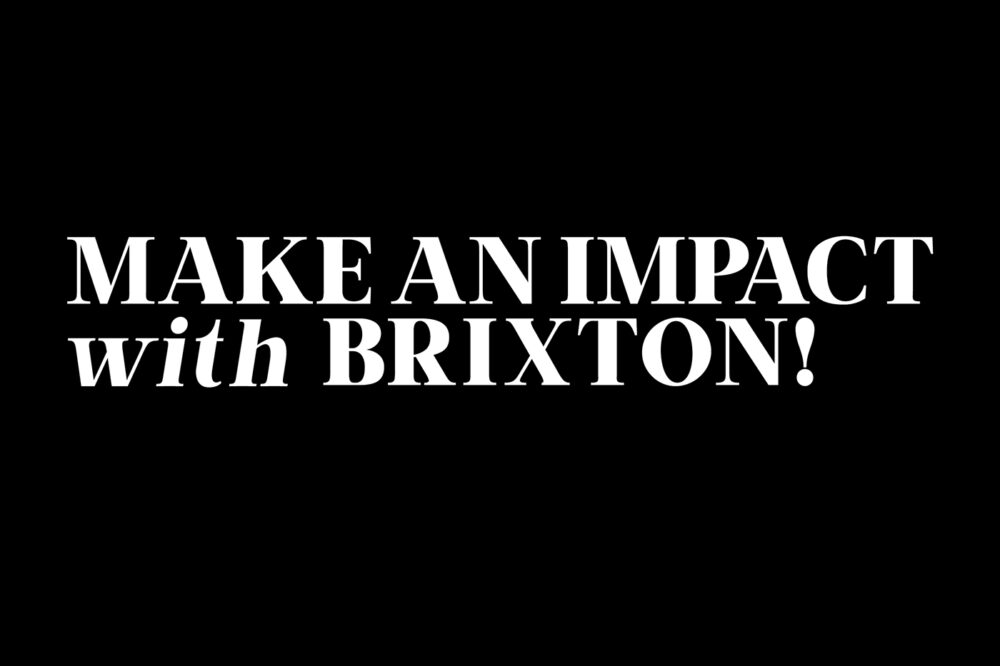
Brixton PRO Family
Introducing Brixton Pro – a versatile collection of 24 fonts, divided into 6 distinct styles and 4 varying weights. This premium collection is ideal for a wide range of design projects, particularly branding and print design. The design of these fonts is based on the highly popular and original Brixton family, making them a perfect upgrade to your library!